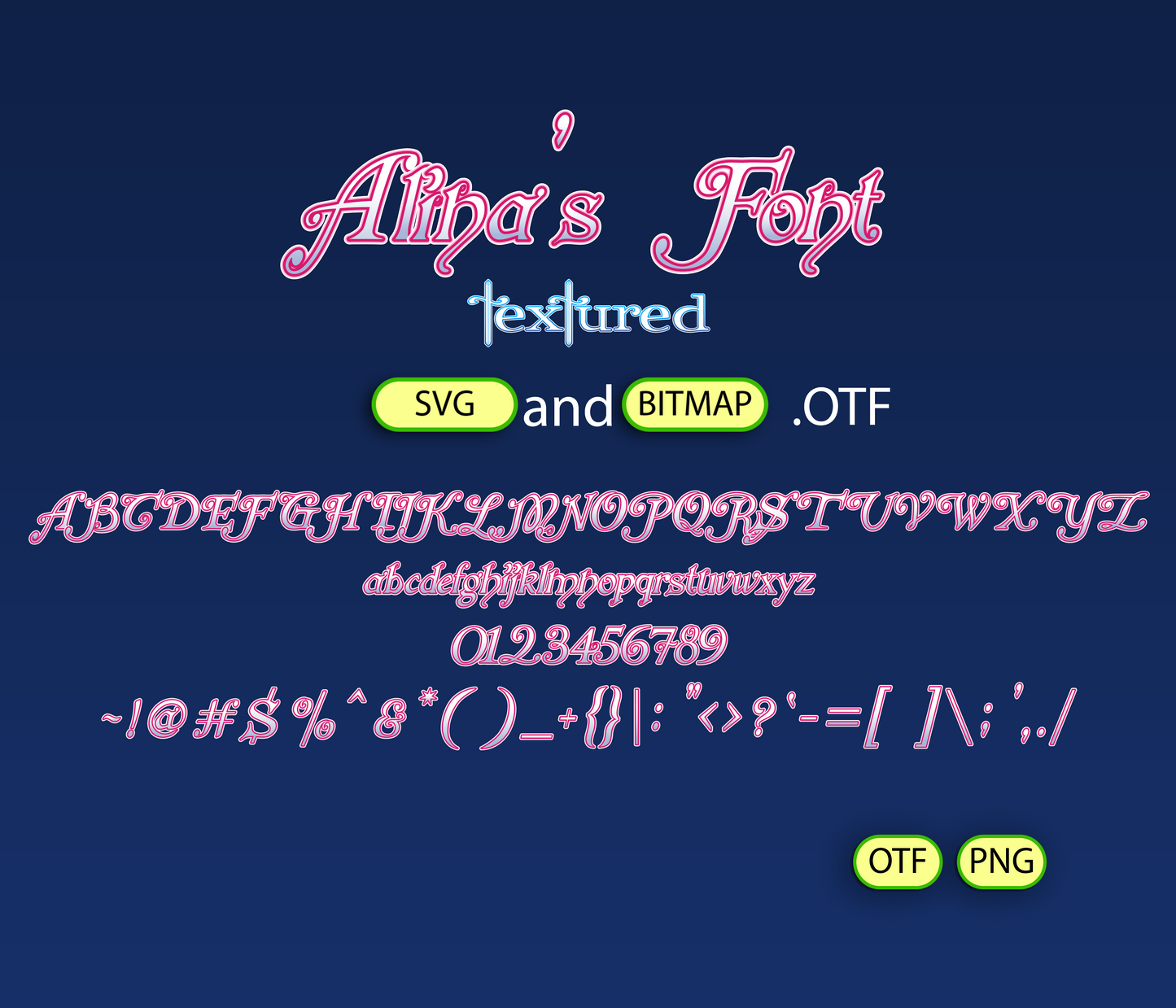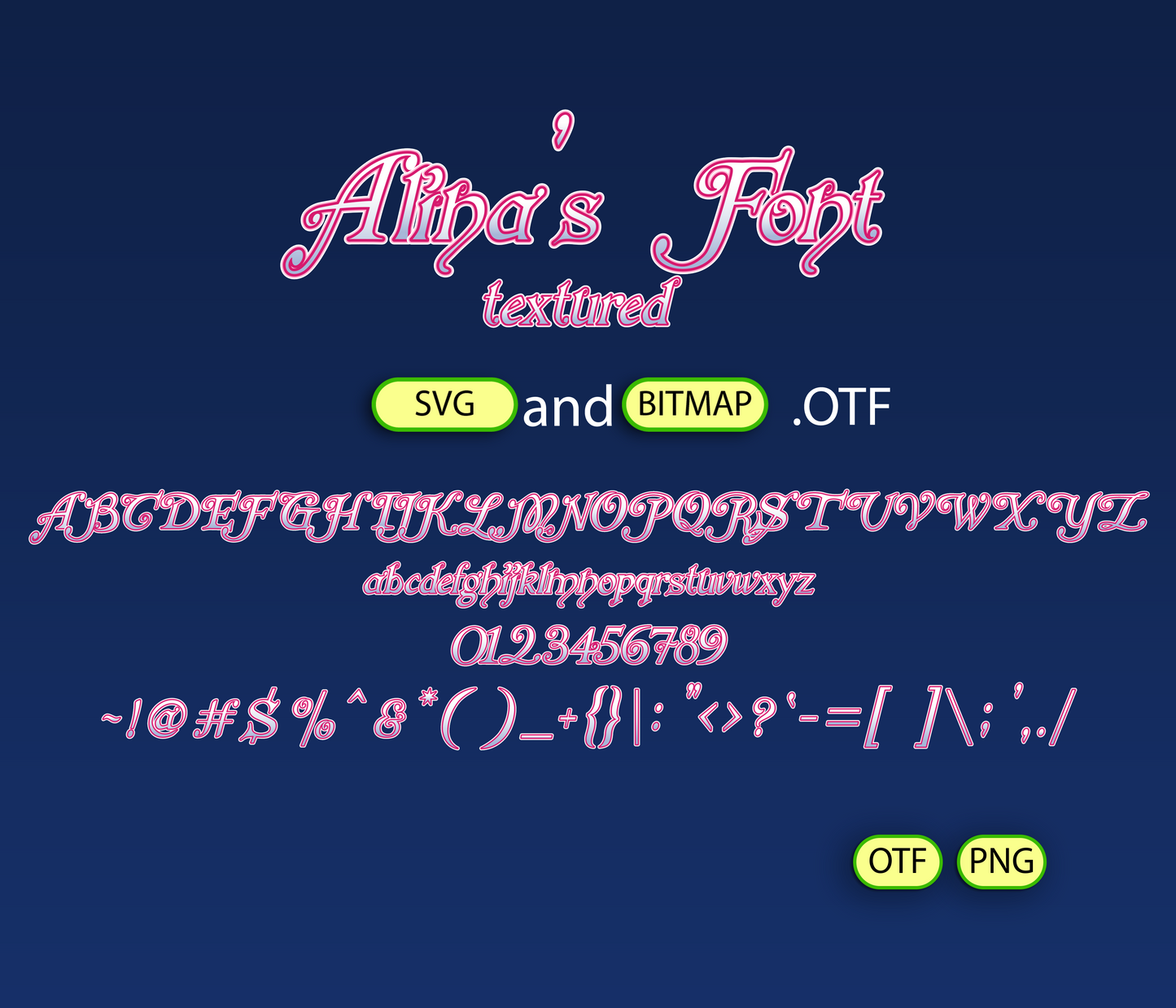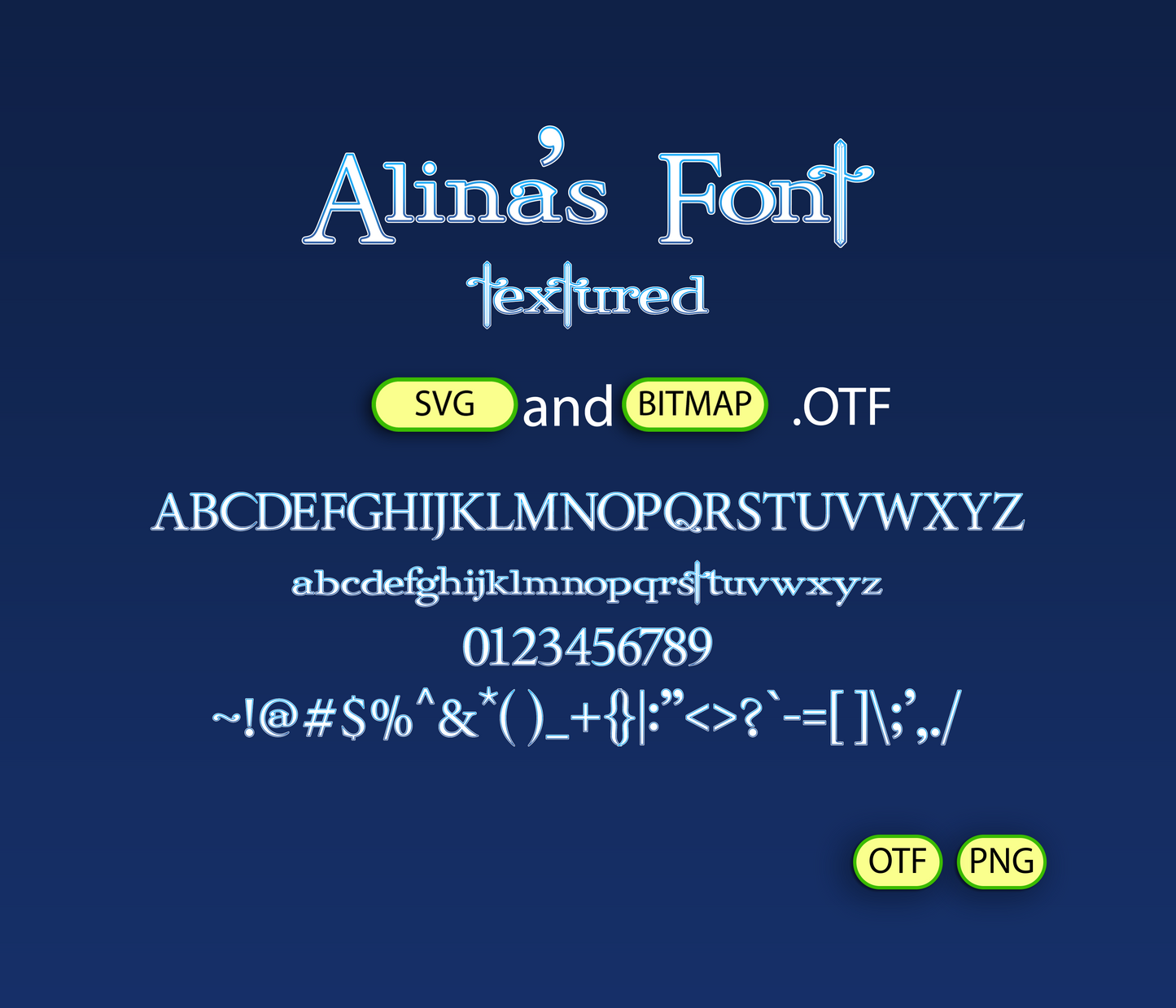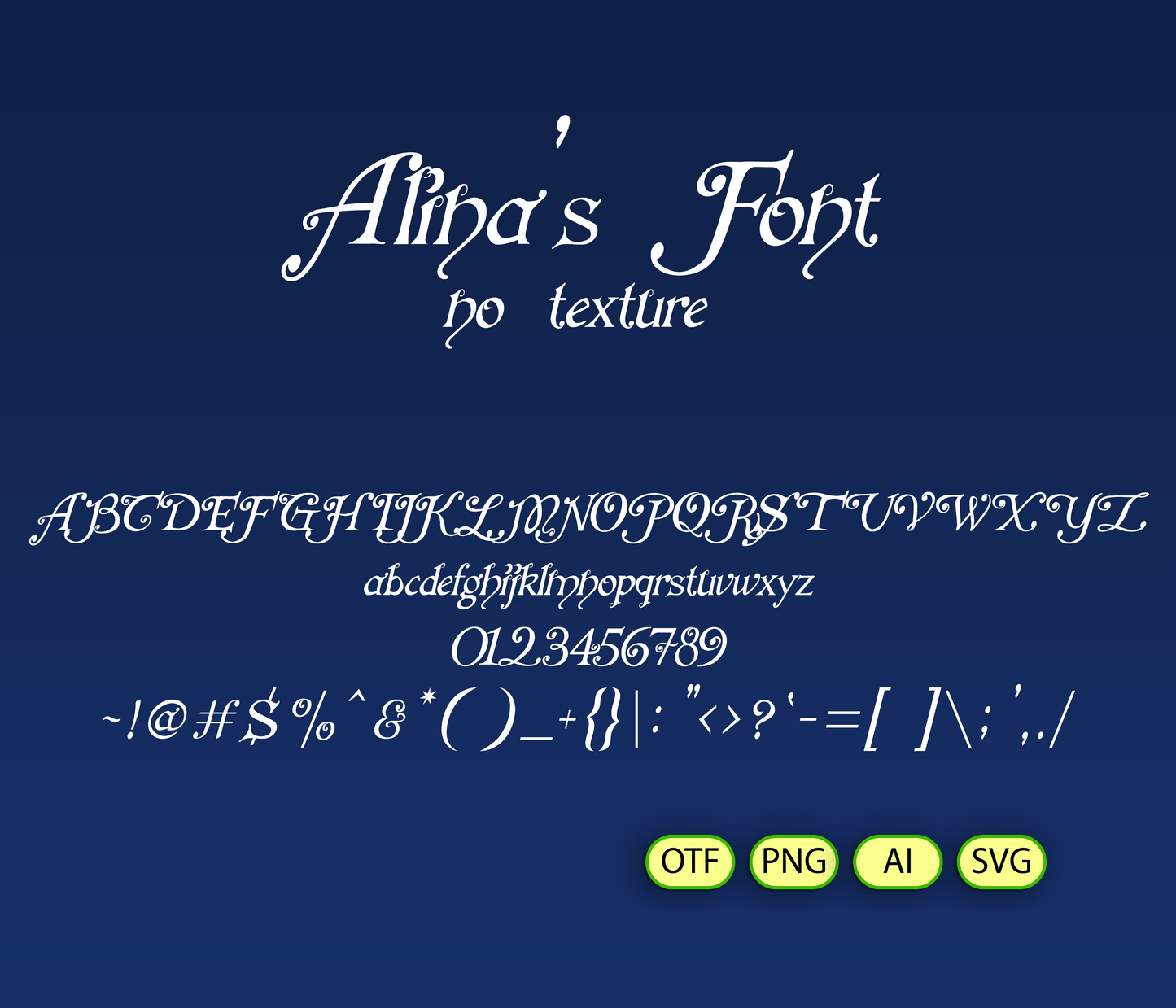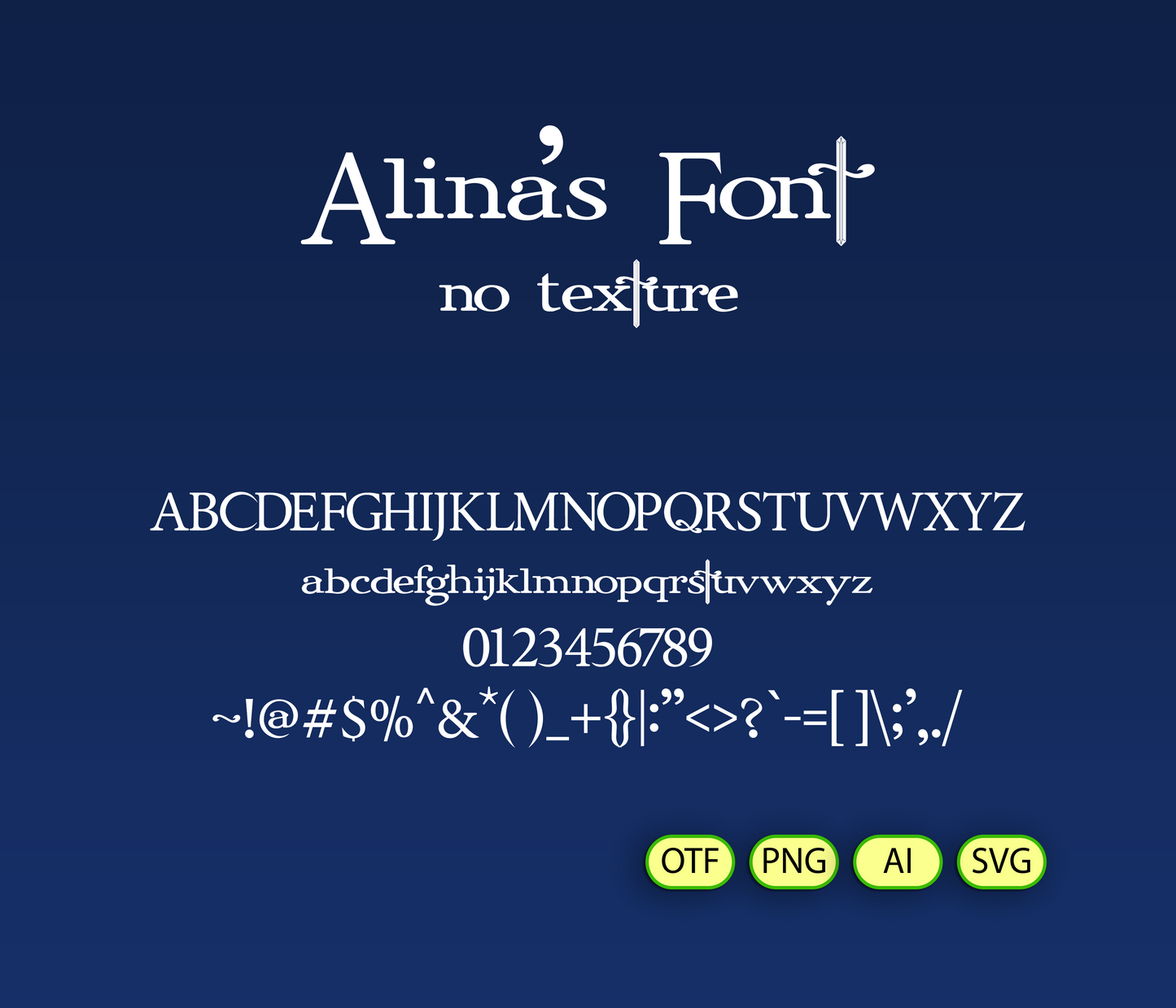
Step into the magical world of celestial battles and cosmic justice with our Crystal Guardian font, capturing the essence of moonlit adventures and stellar heroism. Perfect for magical events, cosmic enthusiasts, celestial content creators, and creative professionals, this font brings the ethereal, powerful spirit of lunar warrior adventures to your projects. Create enchanting invitations, cosmic-themed merchandise, or digital content with the mystical, heroic energy of crystal guardian tales.
Our Crystal Guardian font features graceful, luminous strokes and celestial characters reflecting the magically powerful yet elegant aesthetic of cosmic battle scenarios. Ideal for:
- Magical Events: Create attention-grabbing invites, posters, and banners for cosmic parties, celestial-themed experiences, and mystical gatherings
- Fantasy Design: Perfect for book covers, magical promotions, and lunar-themed party accessories that capture crystal guardian essence
- Digital Media: Enhance websites, blogs, and social media with luminous headers and graphics that express magic and celestial spirit
- Entertainment Content: Add authentic character to magical materials, cosmic designs, and promotional materials for mystical events
- Personal Projects: Bring celestial charm to scrapbooking, DIY crafts, and home decor inspired by the aesthetics of crystal guardians